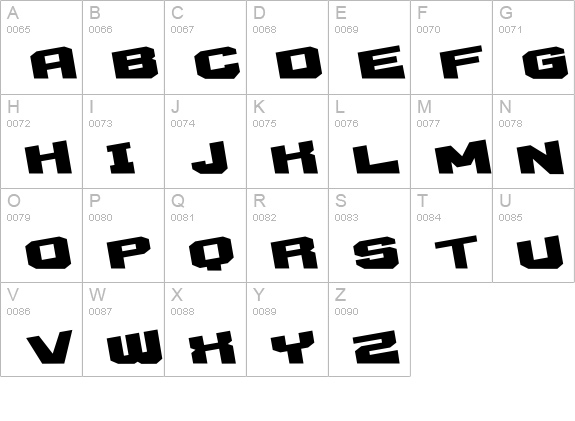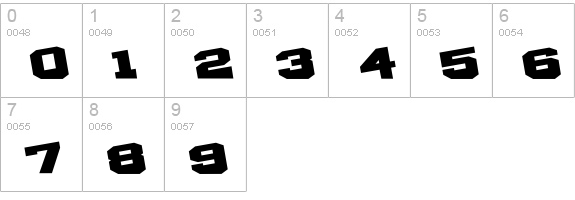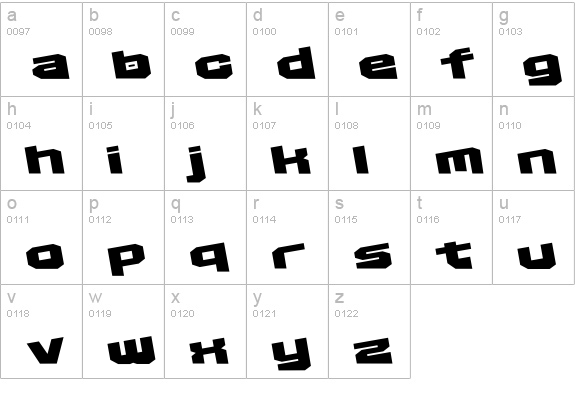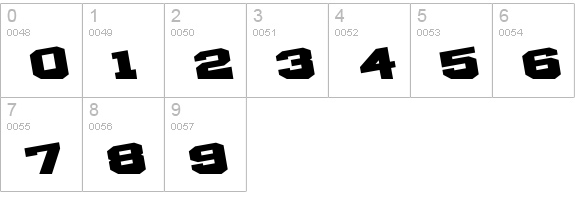
D3 Egoistism extra Font Details
Introducing the D3 Egoistism Extra Font, a stunning typeface that embodies the essence of modernity and sophistication. With its sleek and sleek design, this font is perfect for creating eye-catching headlines, striking logos, and elegant branding materials. D3 Egoistism Extra Font showcases a unique blend of boldness and elegance, making it ideal for designers who want to make a statement. Its clean and sharp lines exude confidence and self-assurance, making it a perfect choice for projects that require a touch of sophistication. But what sets D3 Egoistism Extra Font apart from the rest is its availability for free! Yes, you heard it right. This remarkable font is freely available to download at FontsMarket.com. Now, you can easily add a touch of elegance to your designs without worrying about breaking the bank. Whether you're a professional designer or a hobbyist, D3 Egoistism Extra Font offers endless possibilities. Its versatility allows it to be used in a wide range of design projects, from print to digital. From creating stunning posters to designing captivating websites, this font will elevate your work to new heights. Featuring a comprehensive character set, D3 Egoistism Extra Font ensures that you have all the tools you need to bring your vision to life. Its extensive range of glyphs and special characters allows you to add a unique touch to your designs, making them truly one-of-a-kind. So why wait? Unleash your creativity and download the D3 Egoistism Extra Font for free at FontsMarket.com today. Elevate your designs with this remarkable typeface and let your work speak for itself. It's time to embrace elegance and sophistication in your projects and make a lasting impression.